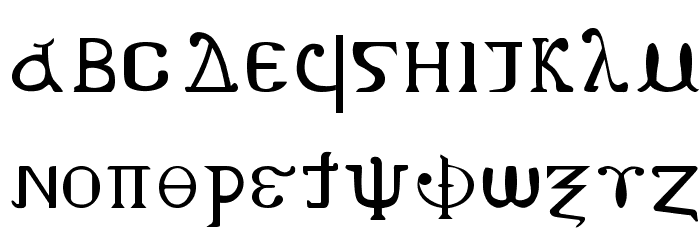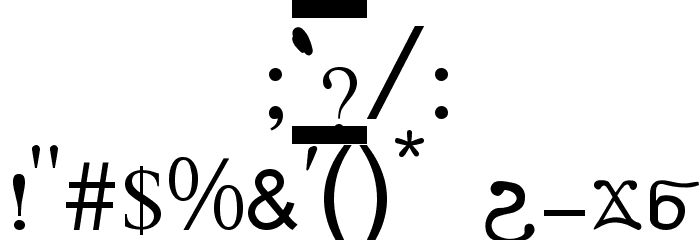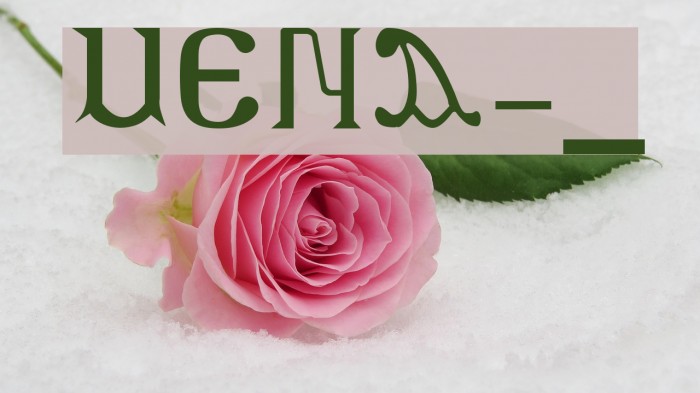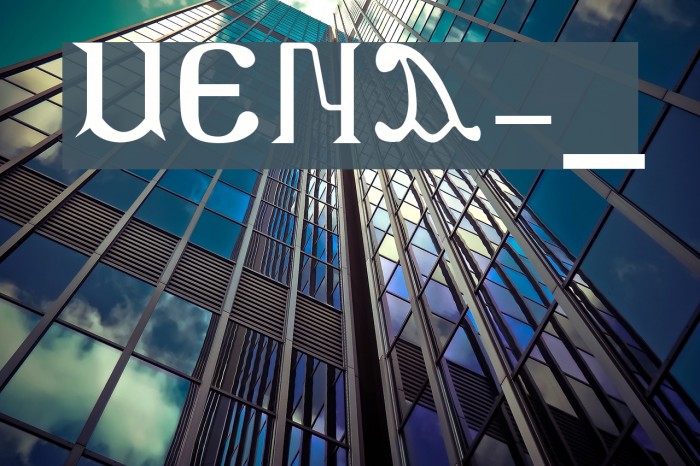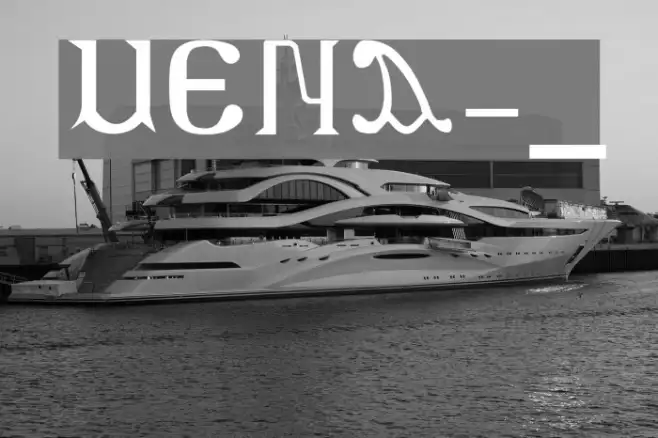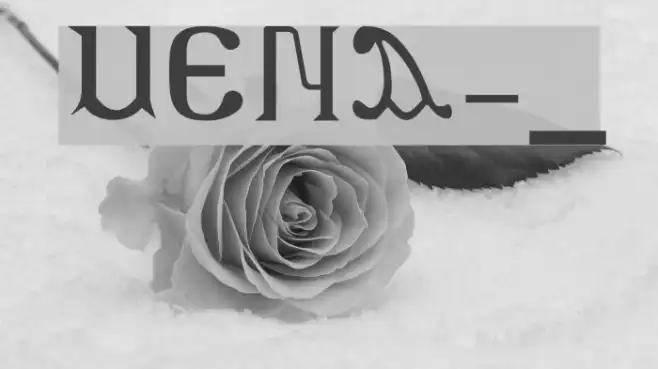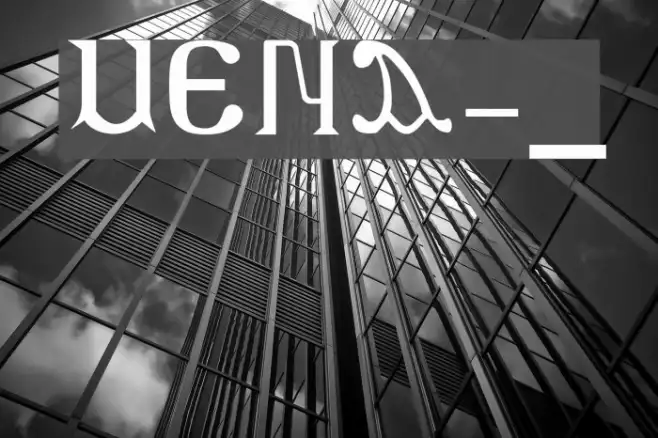
MENA-1 Font
This font features a unique blend of geometric and calligraphic elements, creating a distinct and artistic appearance. The uppercase letters exhibit sharp angles and curves, giving them a dynamic and bold look. The lowercase letters maintain a similar style, with a consistent stroke width that adds to the font's cohesive design. The numerals and special characters are crafted with the same attention to detail, ensuring uniformity across all glyphs. This font's artistic flair makes it suitable for creative projects that require a touch of elegance and sophistication.
A geometric and calligraphic font with bold, artistic strokes.
- Proposed Projects: Ideal for branding, logo design, posters, and artistic projects.